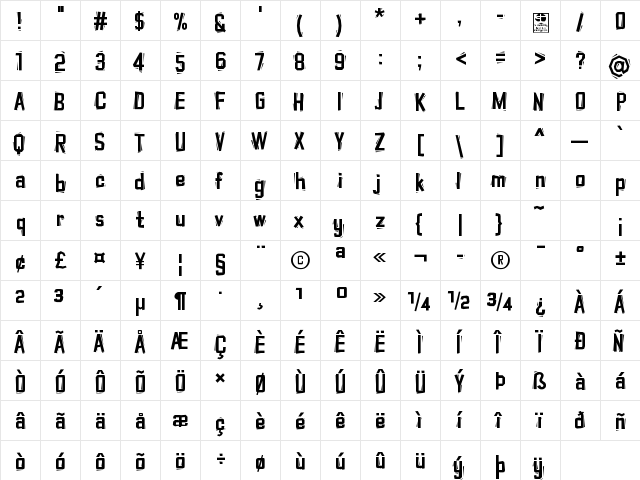
Typo Cut-Out Shaky Demo Regular
| Foundry | StudioTypo |
| Designer | Mehmet Abac |
Design Context for Typo Cut-Out Shaky Demo Typeface
Typo Cut-Out Shaky Demo is a composed and adaptable typeface that performs quietly and consistently across a wide range of design contexts.